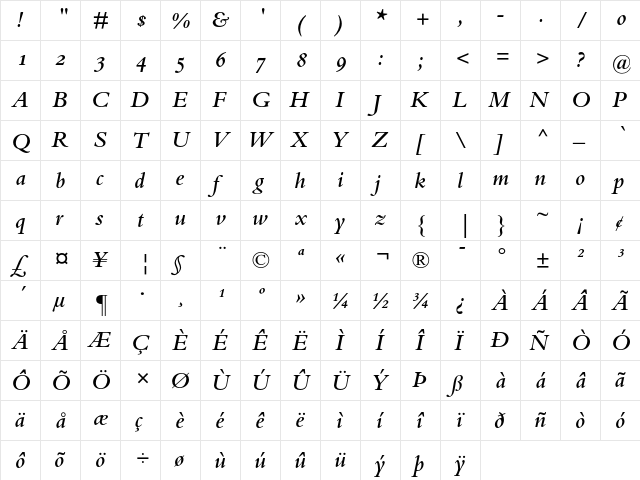
Bembo Semibold Italic Oldstyle Figures Font Preview
Bembo Semibold Italic Oldstyle Figures
Bembo Semibold Italic Oldstyle Figures Font Details
| Style | Semibold Italic Oldstyle Figures |
Design Context for Bembo Typeface
Bembo brings classic typographic sensibility to the table — its serifs and measured letterforms reflect centuries of print heritage. Its italic angle brings a sense of urgency and motion to the letterforms. The heavy weight commands attention and anchors typographic hierarchies.
Pro Tip: Set Bembo with slightly loose tracking in headlines to let each letterform's detail read clearly at display sizes.